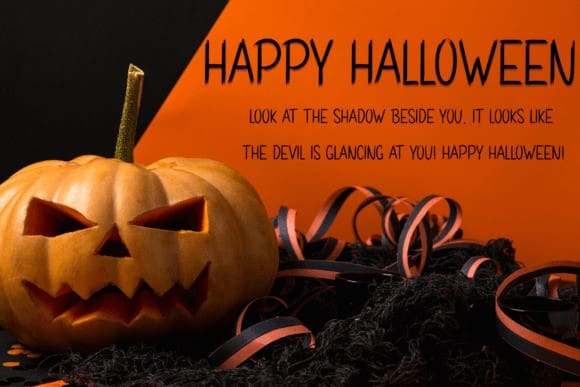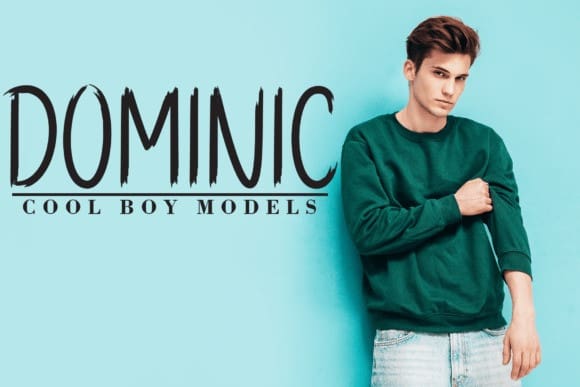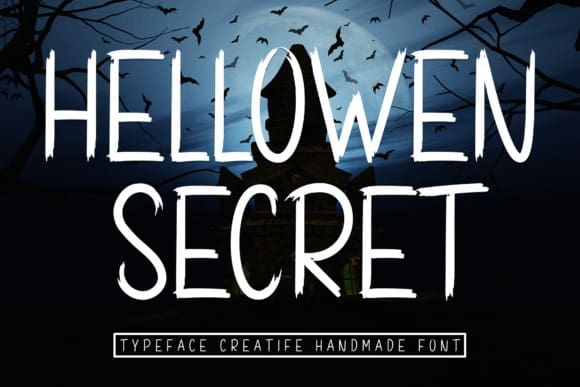
Hellowen Secret Font
Hellowen Secret Font is a sweet and friendly display font. Cute and fun, this font is ideal for writing wedding invitations, cards, or any other design that might need a fun touch!